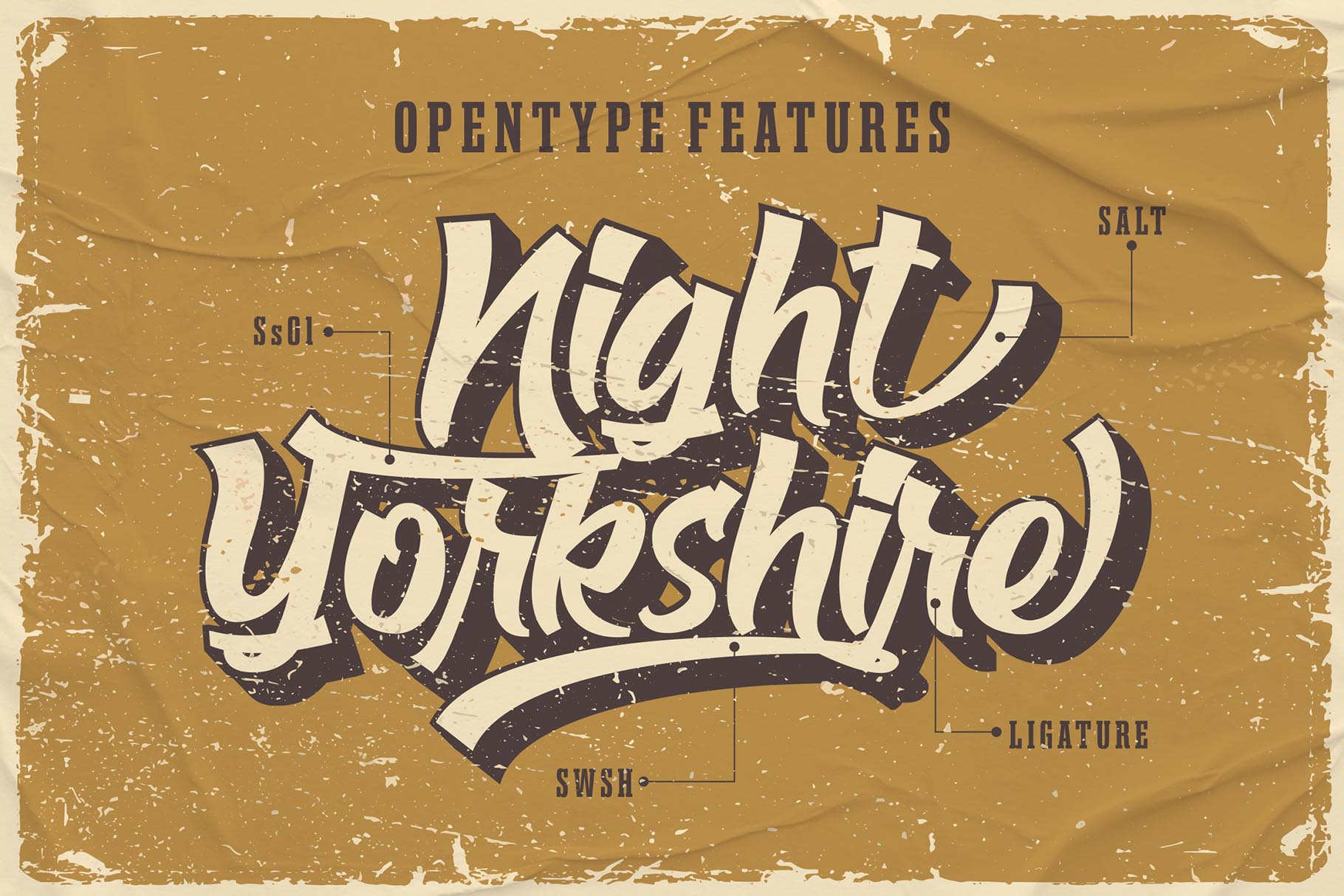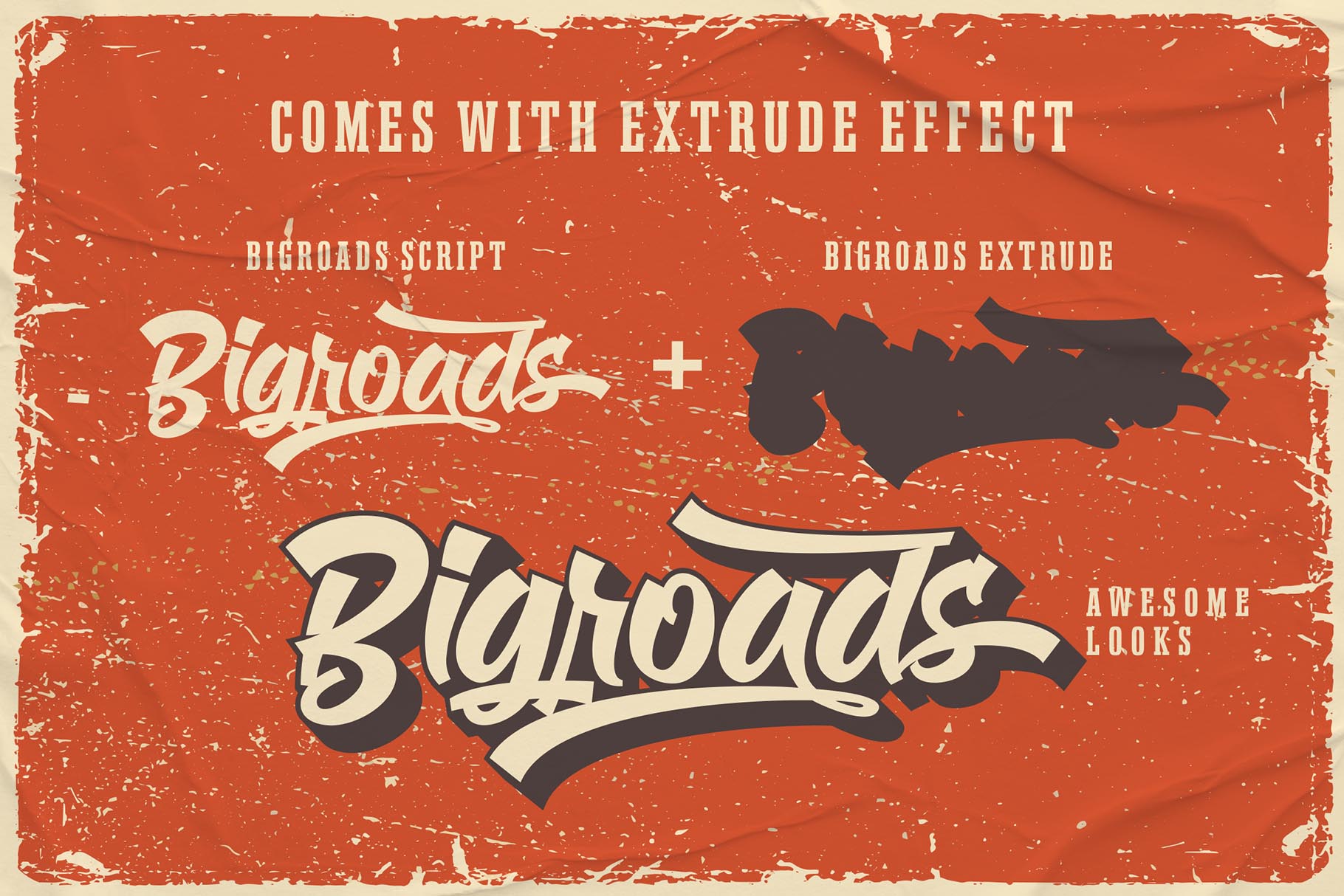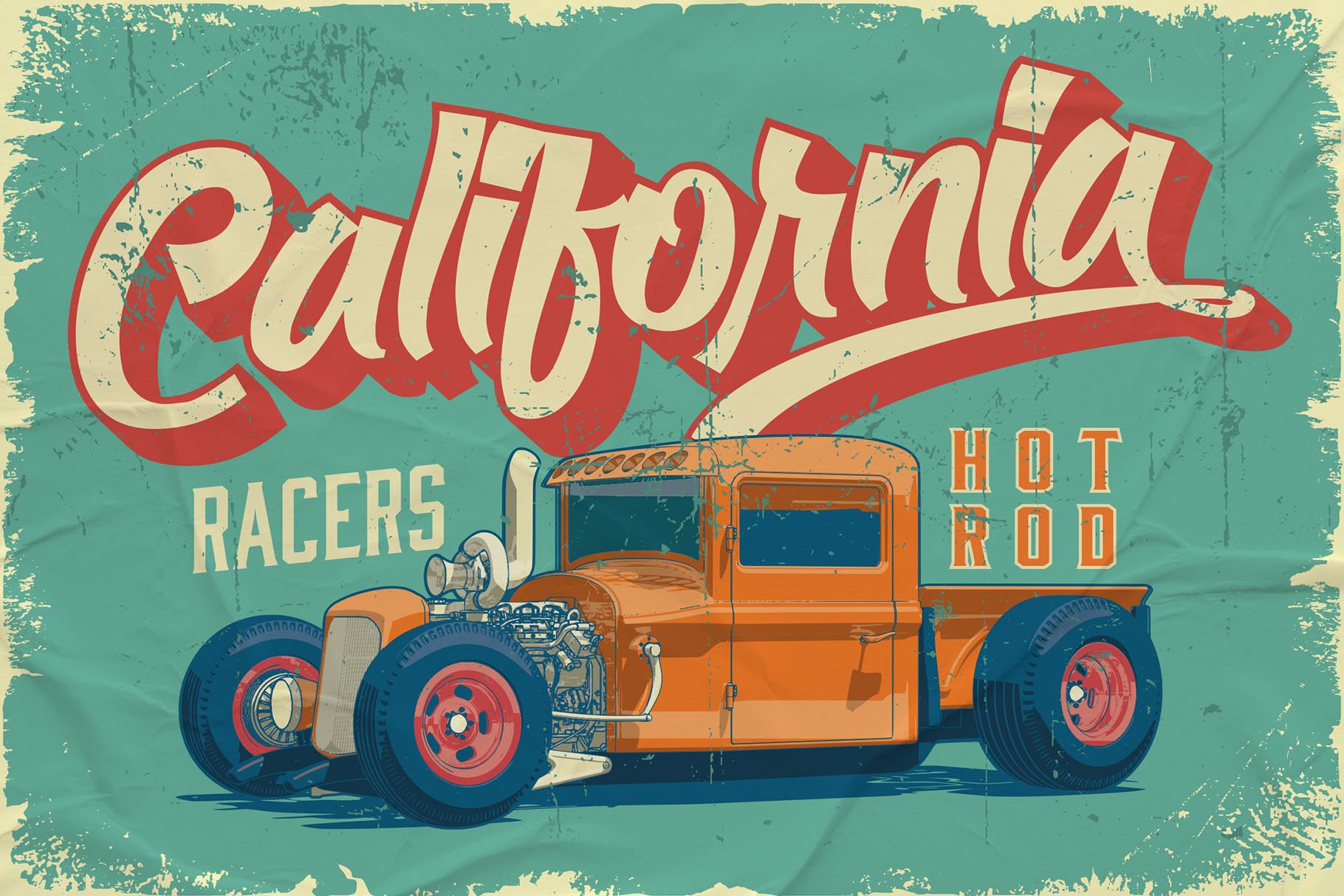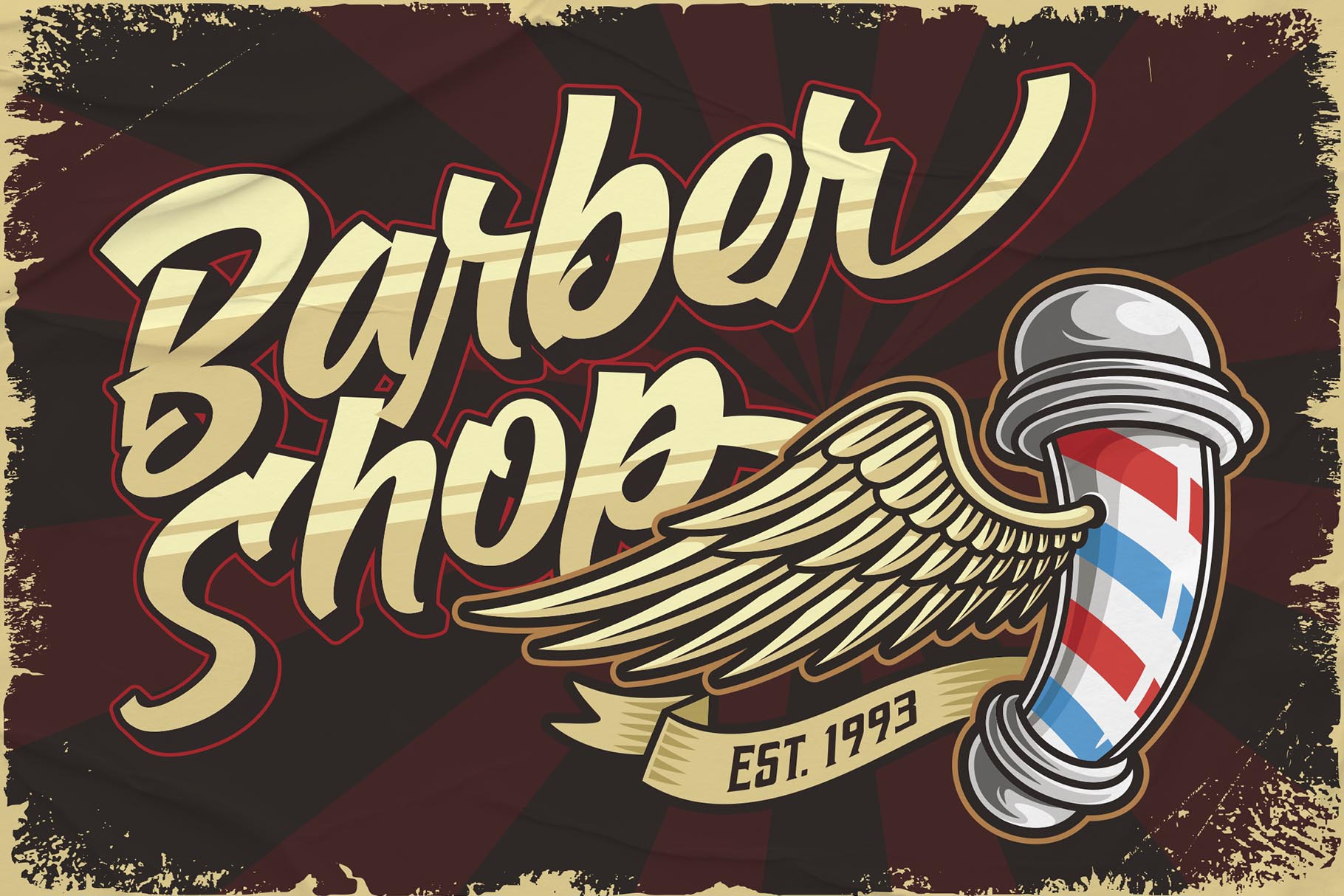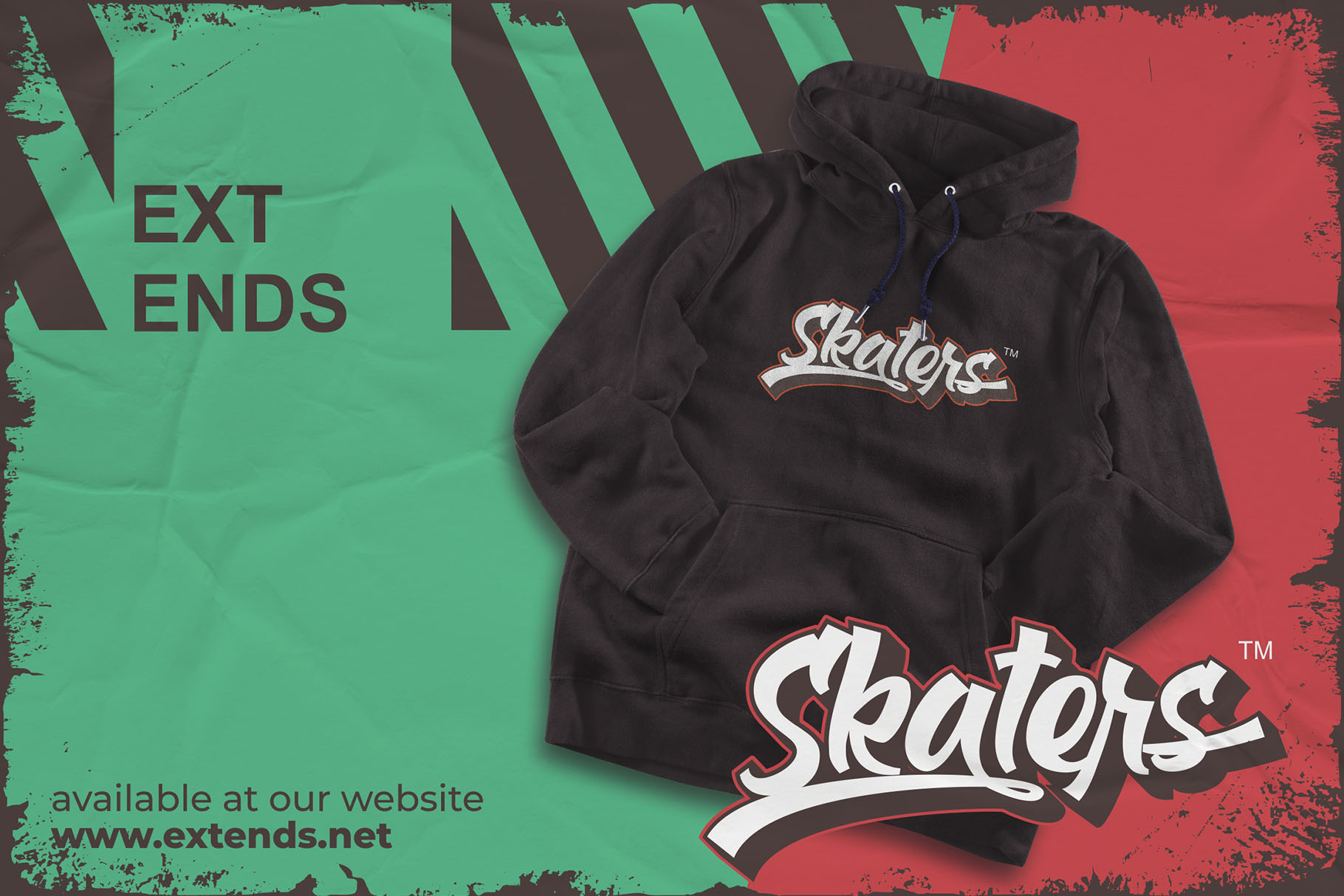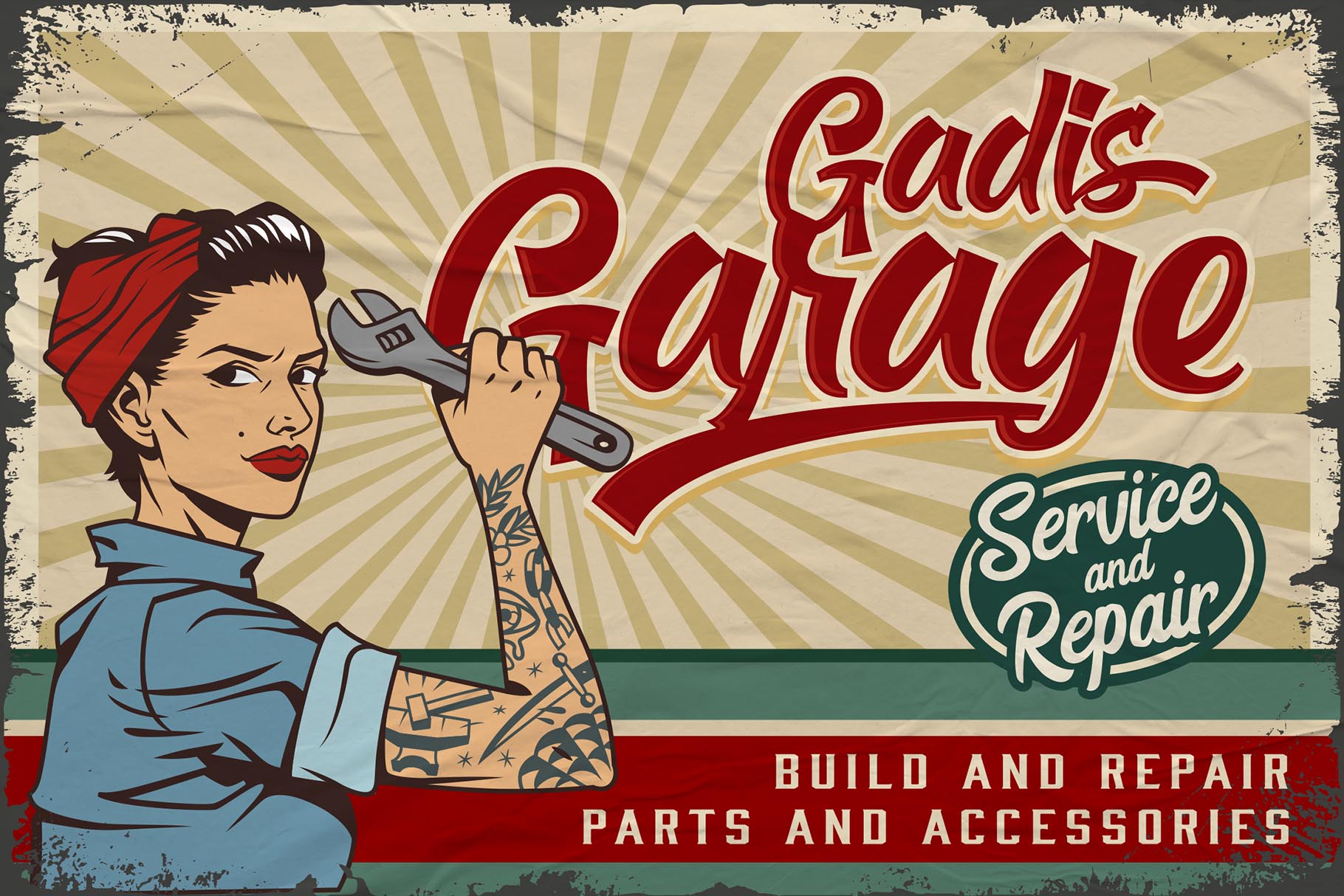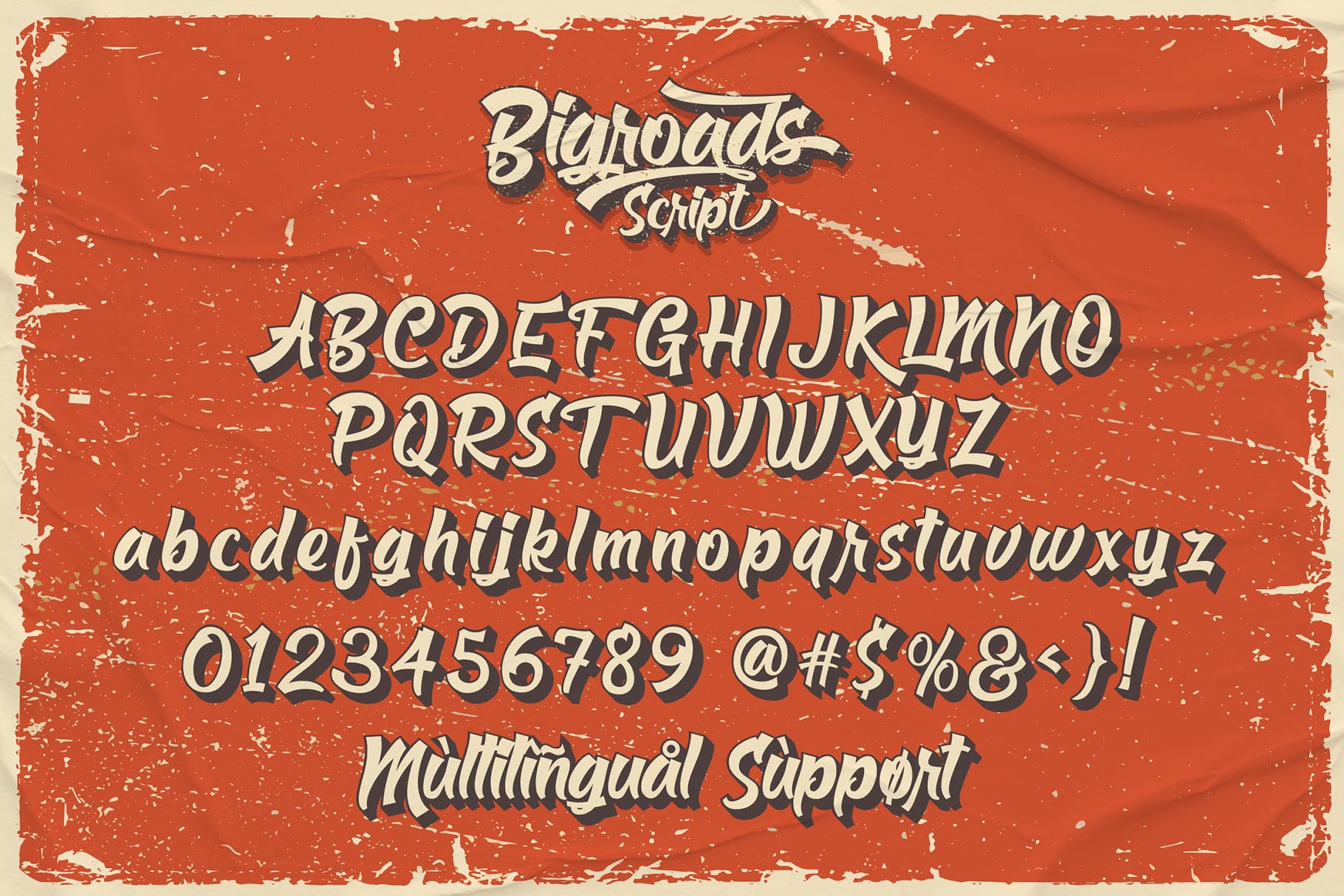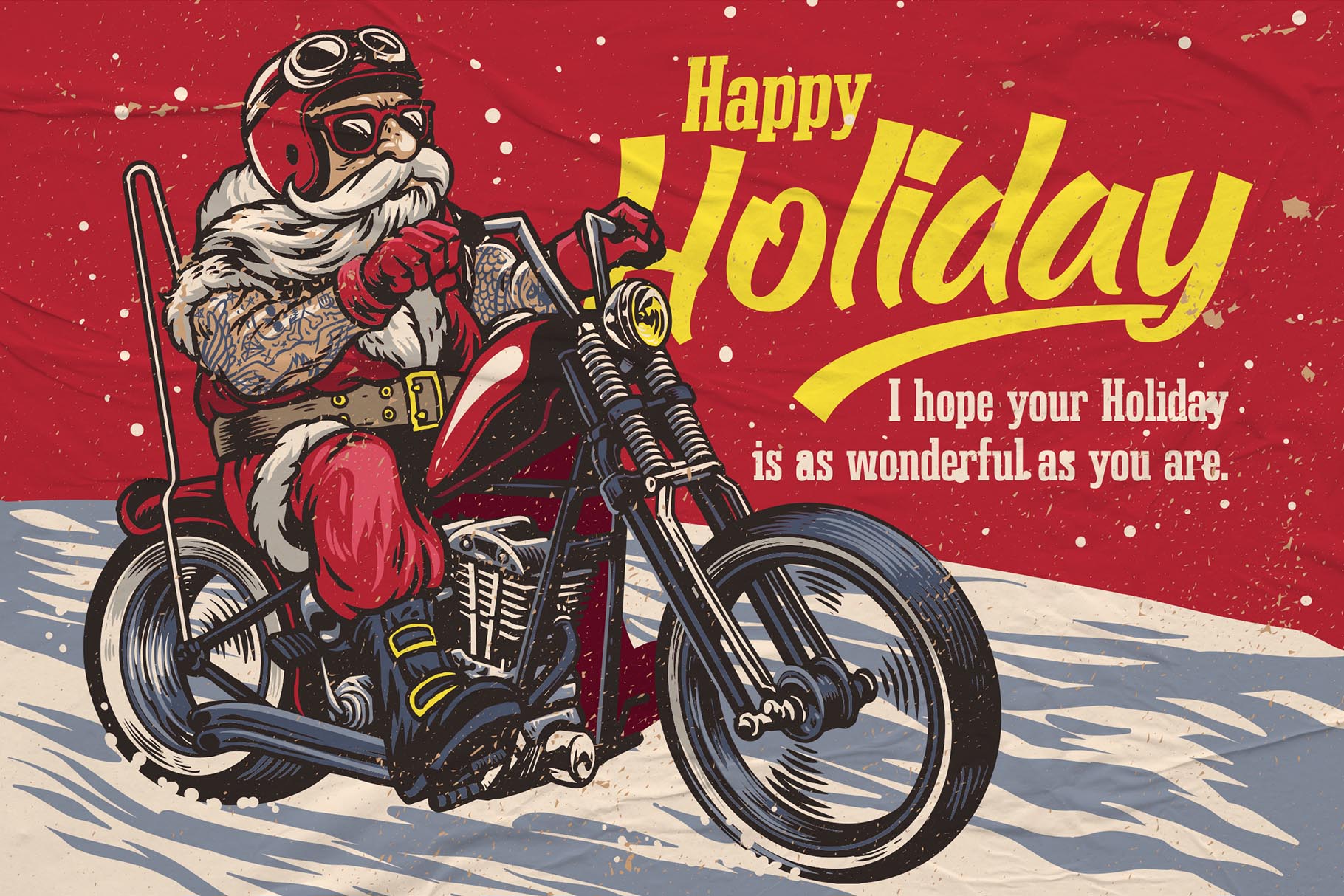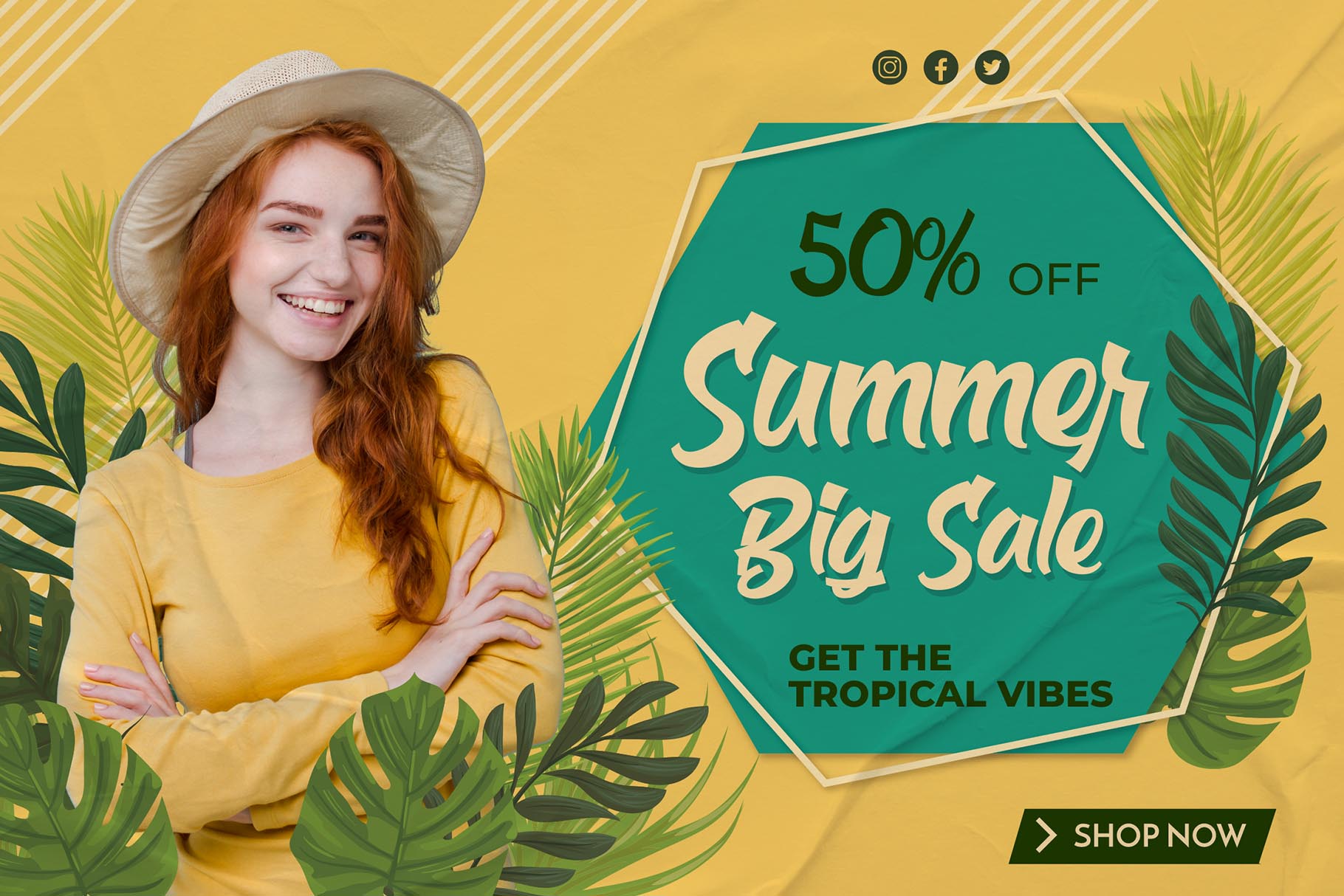
Bigroads Script is a layered bold script with extruding, inspired by a Retro aesthetic. Made in combination with hand lettering, it comes with dramatic movement and it’s great for any next creative project that needs a retro vibe or modern touch.
Ideal for logos, handwritten quotes, product packaging, header, poster, merchandise, social media & greeting cards.
- Basic Latin A-Z and a-z
- Numbers
- Symbols
- Stylistic Alternate
- Stylistic Set
- Swash
- Multilanguage Support